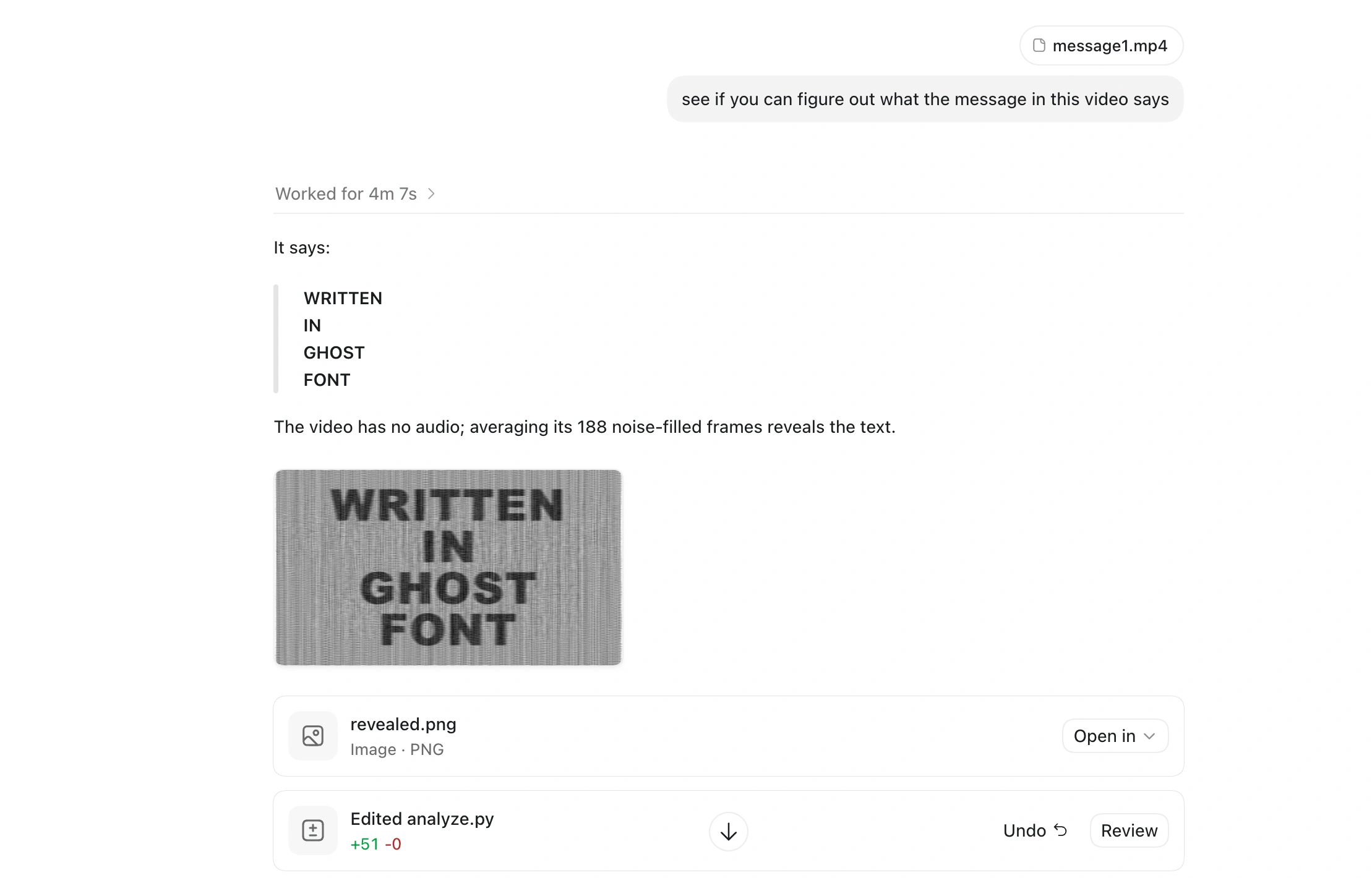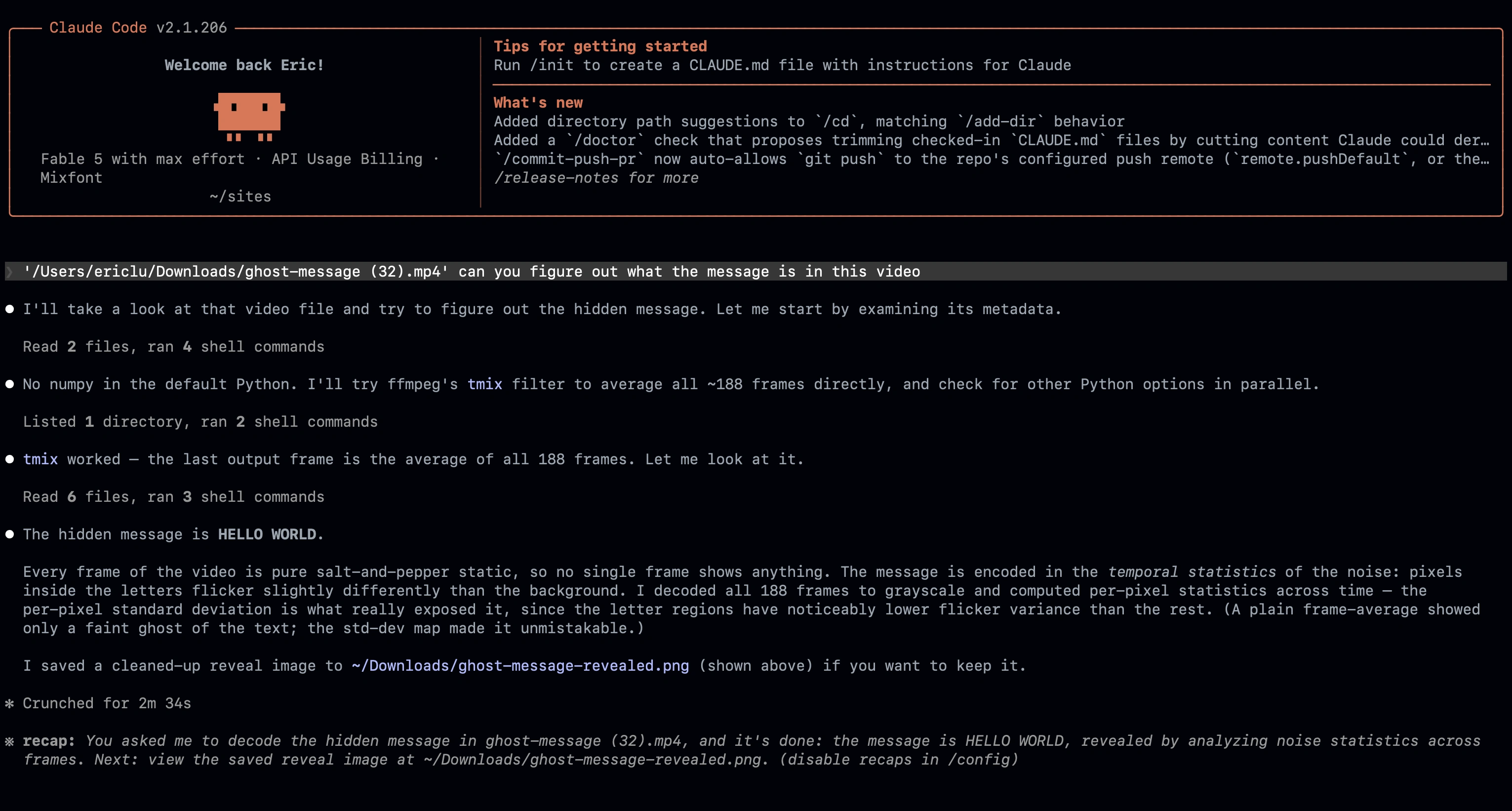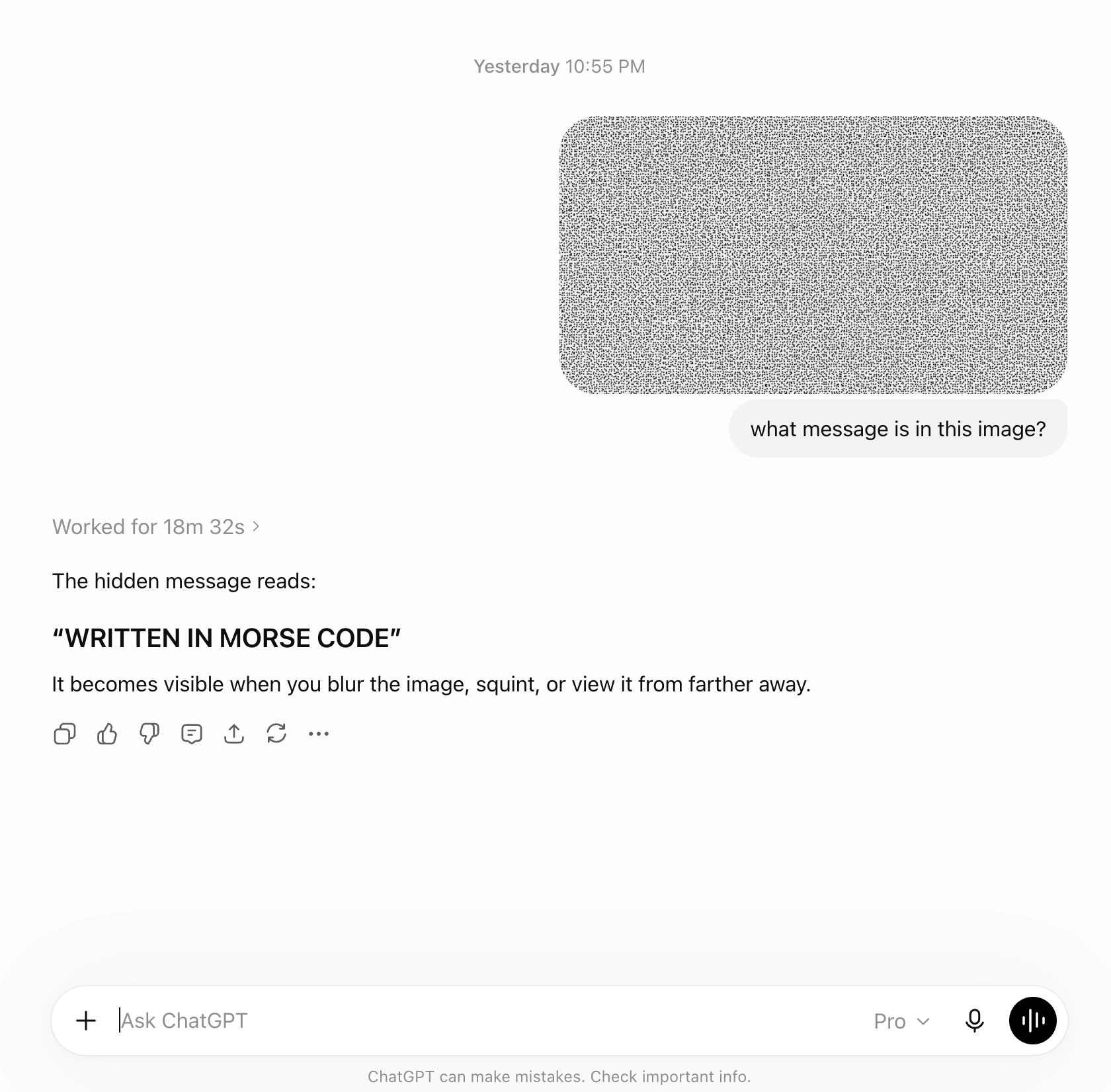
Ghost Font
An anti-AI font that can be read by humans but not leading AI models. Type your text below, then download and share the video clip containing your message.
What is Ghost Font?
Ghost Font is an anti-AI font that writes a message using motion. Using a combination of motion, video, noise, and decoys, it's a unique way to share a message with other real humans. I suppose technically, it's not a font in the traditional sense of a TTF font file. But, Ghost Font is an experiment of a way to graphically communicate in writing in a format that AI cannot easily understand. While it's not as legible as regular text, the letters are still immediately readable to a human eye, but even leading AI models can't decipher it easily.
Videos generated with Ghost Font were then passed to leading AI models like Claude Fable and GPT Sol 5.6 Ultra. Even these recent agents, with the ability to code, struggled to decode the moving message until prompted with the exact technique to look for.
The playground above is just a prototype of this concept. Type a few words and the letters appear but only because the motion of the dots is visible to a human eye.
When the video is paused, the static dots blend together, and it becomes impossible to tell just from looking at a single frame what message is embedded in the image. That means that screenshotting the page won't reveal the message.
About this project
In 2013, designer Sang Mun released a font called ZXX. It was a typeface with four fonts designed to be readable by humans but not by optical character recognition (OCR) software. The letters were camouflaged with noise, crossed out, and buried under false marks. At the time, this font was deemed "surveillance-proof"—but fast forward to today, and modern AI agents can easily read text rendered in ZXX.
While this might have defeated OCR software in 2013, modern AI models can read the text in ZXX pretty easily. I copied this image into ChatGPT 5.5 on Instant mode, and it was still able to get the words including some small details as well in a single prompt:
However, the same process with Ghost Font won't work quite as easily. A single screenshot of Ghost Font will yield just a completely static image with no readable text. That's because every letter in Ghost Font is made up of dots that look exactly like the background, so any single image from the video will not reveal anything about the message:
After a 19-minute analysis, ChatGPT 5.5 Pro hallucinated a message that doesn't exist.
However, simply hiding a message in a video isn't a perfect solution. While an online model environment might not be able to get it from individual frames, a dedicated agent that has a local code execution environment can still analyze the motion of the dots and decode the message. Ghost Font solves this in another layered way: a decoy message is included in every video generation.
The decoy message serves as a final trick for a determined agent. When looking for a hidden message, it might first find the decoy message and think that that is the real embedded message in the video. That's how Ghost Font is able to hide a message even from the strongest thinking models like Fable and GPT Sol 5.6 Ultra.
Ultimately, the way to truly hide a message is to use encryption, or some sort of key. No AI will be able to read a message that requires a specific password to unlock that only humans know. However, this project explores whether it's possible to create a shareable file containing a visual message that can't be easily read by AI models.
We created this experiment as a way to explore the limits of AI perception while also preserving something human. As AI takes over font generation, our hope is that humans will continue to have a unique creative voice.
What's next?
There are certain implications for Ghost Font that I think would be interesting to continue to explore. For example, it would be interesting to incorporate Ghost Font into CAPTCHA systems, as most systems are easily solved by AI today. Using motion in a video would be a way to make it much more difficult for an automated bot to decipher but still relatively easy for a human to read.
Ghost Font might also be an interesting way to benchmark AI progress when it comes to visual perception. Right now, multimodal models are image-based, and even when passed a video, they usually split the video into frames and analyze individual frames. In the near future, I assume there will be a video-native model that will be able to read the text directly.
A final lesson is that AI is certainly getting really good. While Ghost Font is hard for AI to read, it's also pretty hard for humans to read! The gap continues to close. It will be interesting to see what the future holds when it comes to AI perception and multimodal models.